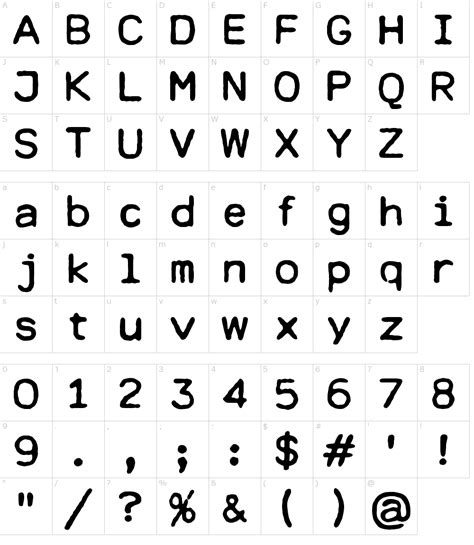
Dresden Elektronik Font: A Typographic Deep Dive
Hey guys! Today, we’re diving deep into something super cool for all you design enthusiasts and tech geeks out there: the Dresden Elektronik Font . Now, you might be thinking, “A font? What’s so special about a font?” Well, let me tell you, this isn’t just any font. It’s a piece of design history, a testament to a specific era in technology, and a really unique typographic specimen that deserves a closer look. We’re going to break down its origins, its distinctive characteristics, and why it continues to capture the imagination of designers even today. Get ready to explore the fascinating world of the Dresden Elektronik Font!
The Genesis of a Digital Icon
So, where did this intriguing font, the Dresden Elektronik Font , actually come from? Its story is deeply intertwined with the rise of digital technology and the aesthetics that defined it. Think back to the early days of computers, early electronic displays, and the very first digital interfaces. This was a time when design was heavily influenced by the limitations and possibilities of the technology itself. The Dresden Elektronik Font emerged from this fertile ground, likely as a proprietary typeface or a standard display font used in specific electronic devices or systems originating from Dresden, Germany, a city with a rich history in engineering and technology. It’s not a font you’d typically find pre-installed on your modern operating system, which adds to its mystique. Instead, its prevalence was often tied to particular hardware, scientific equipment, or even early gaming consoles and industrial control panels. The very name, “Dresden Elektronik,” suggests a direct link to this technological hub and the electronic innovations born there. The design principles behind such early digital fonts were often driven by legibility on low-resolution screens and the need for clear, unambiguous character rendering. This meant bold strokes, stark contrasts, and often a somewhat blocky or geometric feel. The Dresden Elektronik Font embodies these characteristics, offering a window into the visual language of a bygone technological era. Understanding its genesis helps us appreciate the context in which it was created and the functional requirements that shaped its unique form. It’s a perfect example of form following function, where the technology dictated the aesthetic, creating a style that is now highly sought after for its retro-futuristic appeal.
Unpacking the Visual Characteristics
When we talk about the Dresden Elektronik Font , what exactly are we looking at? What makes it stand out from the crowd? Let’s get into the nitty-gritty of its visual identity. The most striking feature is often its distinctly geometric and blocky structure . Think sharp angles, straight lines, and a very constructed feel. Unlike the smooth curves and organic flow of many modern serifs or sans-serifs, the Dresden Elektronik Font usually boasts a utilitarian, almost mechanical appearance. You’ll notice a strong emphasis on uniform stroke width , which contributes to its clean and legible, albeit somewhat stark, appearance. There’s often a lack of subtle detailing or ornamentation . This is a font that means business; it’s built for clarity and function on screens where pixels were a precious commodity. The letterforms themselves might appear somewhat condensed or extended, depending on the specific variant, but the overall impression is one of boldness and directness . Some versions might even feature squared-off terminals or subtle cut-offs on certain strokes, further enhancing its electronic, digital vibe. The kerning (the spacing between letters) can also be a defining characteristic, sometimes appearing a bit wider or more evenly distributed than in contemporary fonts, designed to prevent letterforms from bleeding into each other on lower-resolution displays. The x-height is often generous, ensuring that lowercase letters are easily readable, a crucial factor in early digital interfaces. The numerals, too, usually reflect this aesthetic – often monospaced and with that same blocky, engineered quality. When you look at the Dresden Elektronik Font , you’re not just seeing letters; you’re seeing the constraints and innovations of early digital design. It’s a font that speaks of circuit boards, cathode-ray tubes, and the dawn of the digital age. Its simplicity is its strength, its blockiness its charm, and its utilitarian nature its enduring legacy. It’s a design that, despite its age and origins, still possesses a powerful visual punch.
Why It’s Still Relevant Today
Okay, so we’ve seen where the Dresden Elektronik Font comes from and what it looks like. But here’s the million-dollar question: why should you , in this super-modern, high-res, Retina-display world, care about a font that feels like it belongs in a museum of old technology? Well, guys, its relevance today is multifaceted and, frankly, pretty awesome. Firstly, there’s the undeniable nostalgia factor . For many, this font evokes memories of early computing, retro video games, and a time when technology felt more tangible and perhaps a bit more mysterious. This wave of retro-futurism has been huge in design for years, and fonts like Dresden Elektronik are at the forefront of that aesthetic. They bring a sense of authenticity and a tangible link to a past that many find incredibly appealing. Secondly, its unique aesthetic offers a powerful design tool. In a sea of ubiquitous sans-serifs and elegant serifs, the Dresden Elektronik Font cuts through the noise. Its bold, geometric, and distinctly digital character can add instant personality, a retro-futuristic edge, or a sense of industrial grit to any project. Whether you’re designing a poster for a sci-fi film, a website for a tech startup wanting a vintage vibe, or even just a personal project, this font can make a statement. It’s a way to stand out and inject a narrative into your visuals. Thirdly, the simplicity and legibility that were its original design goals still hold up. While it might look